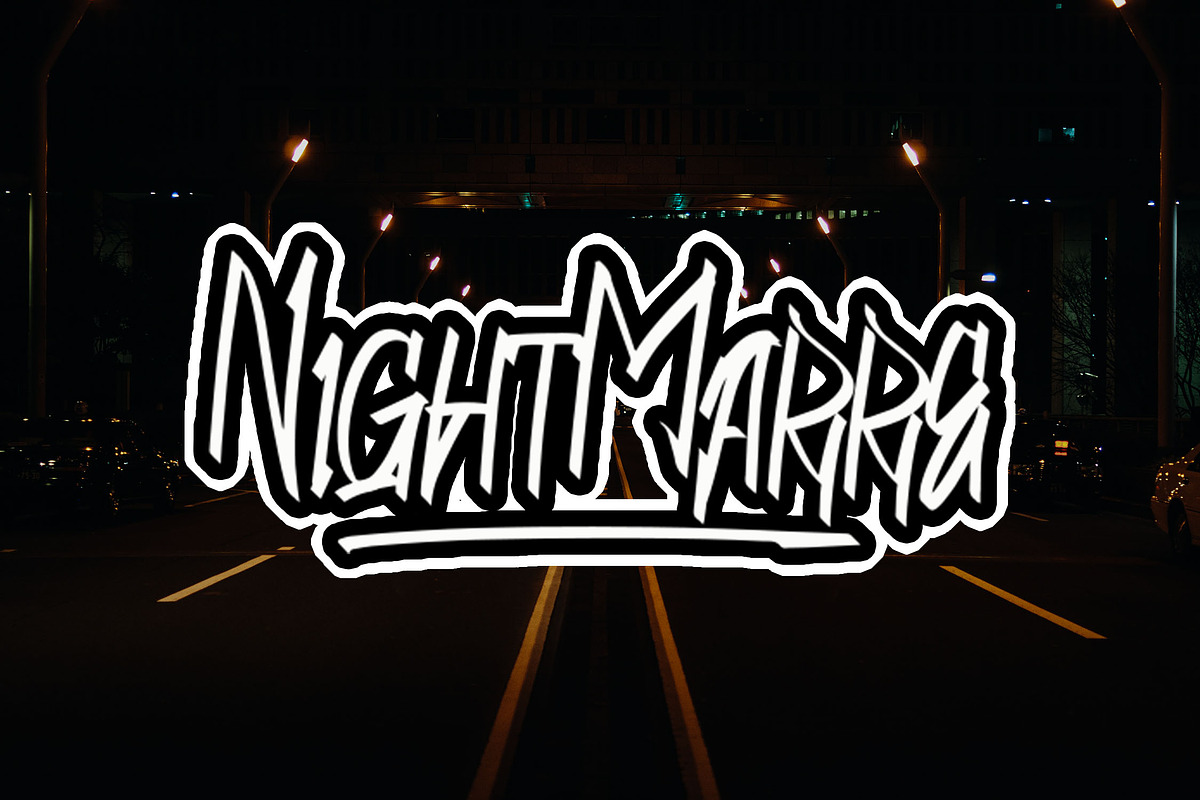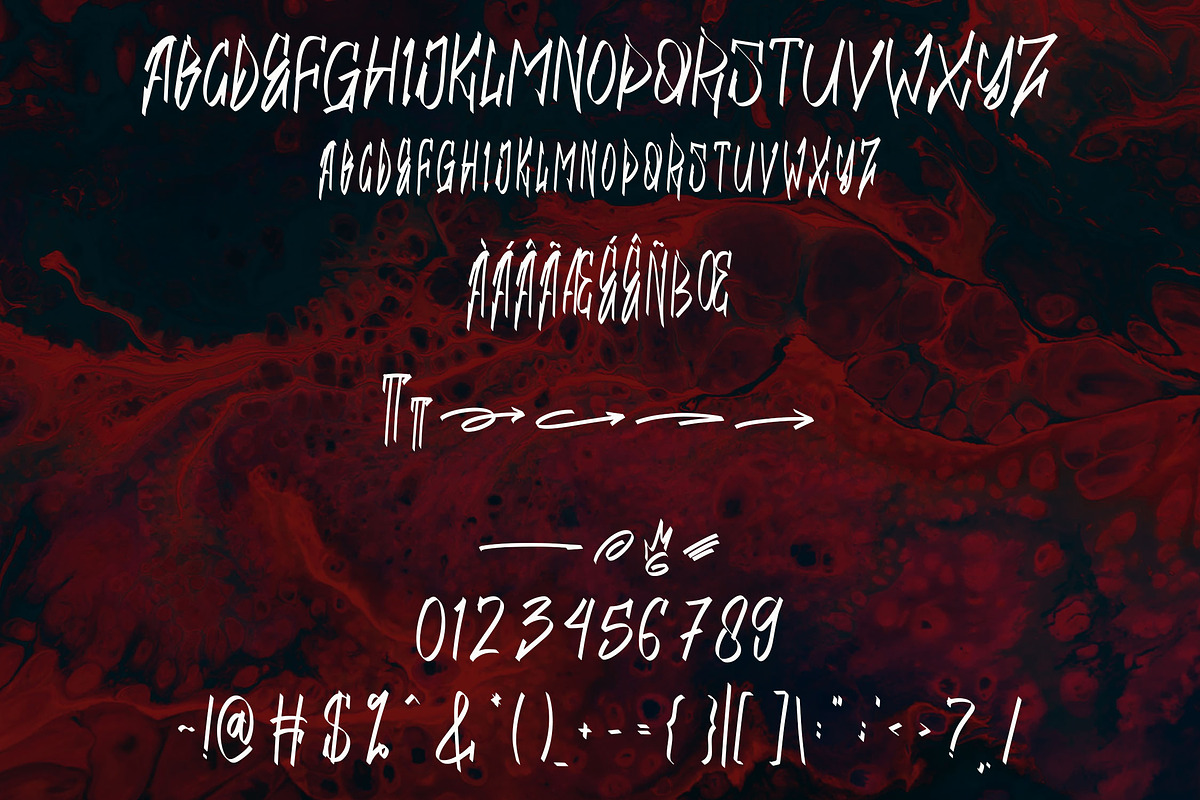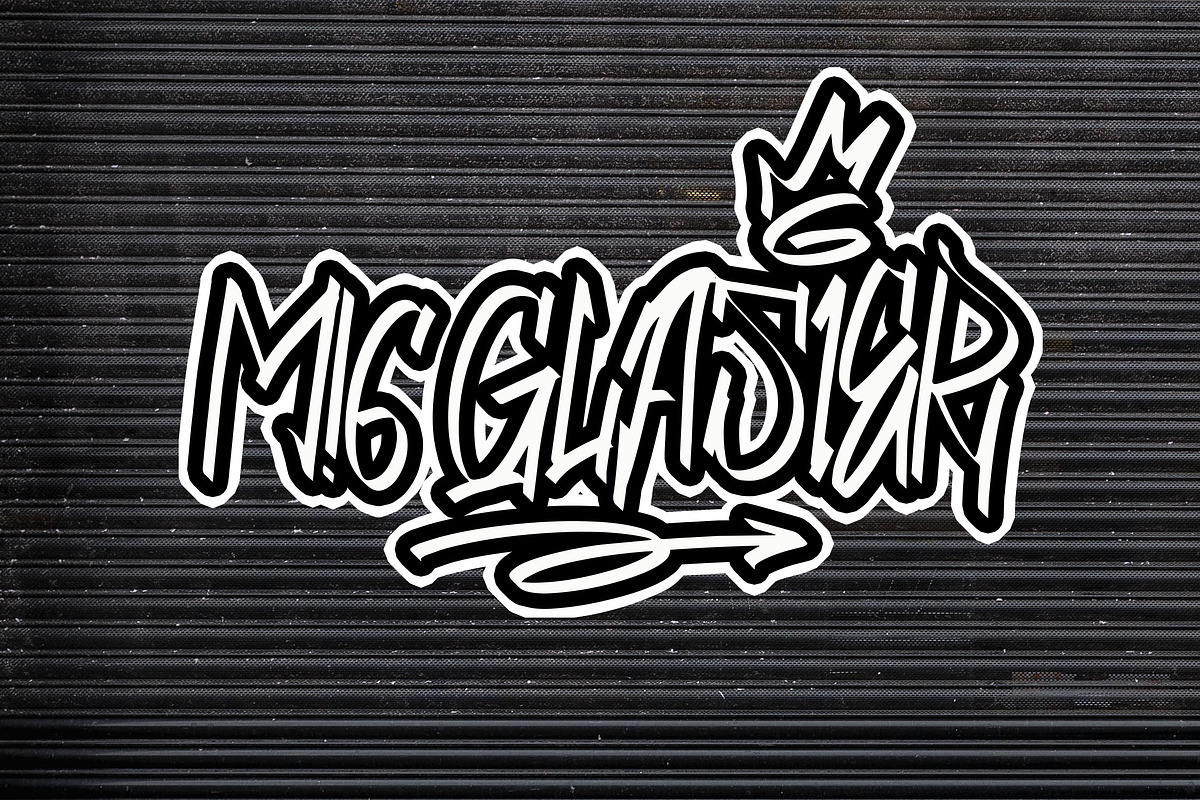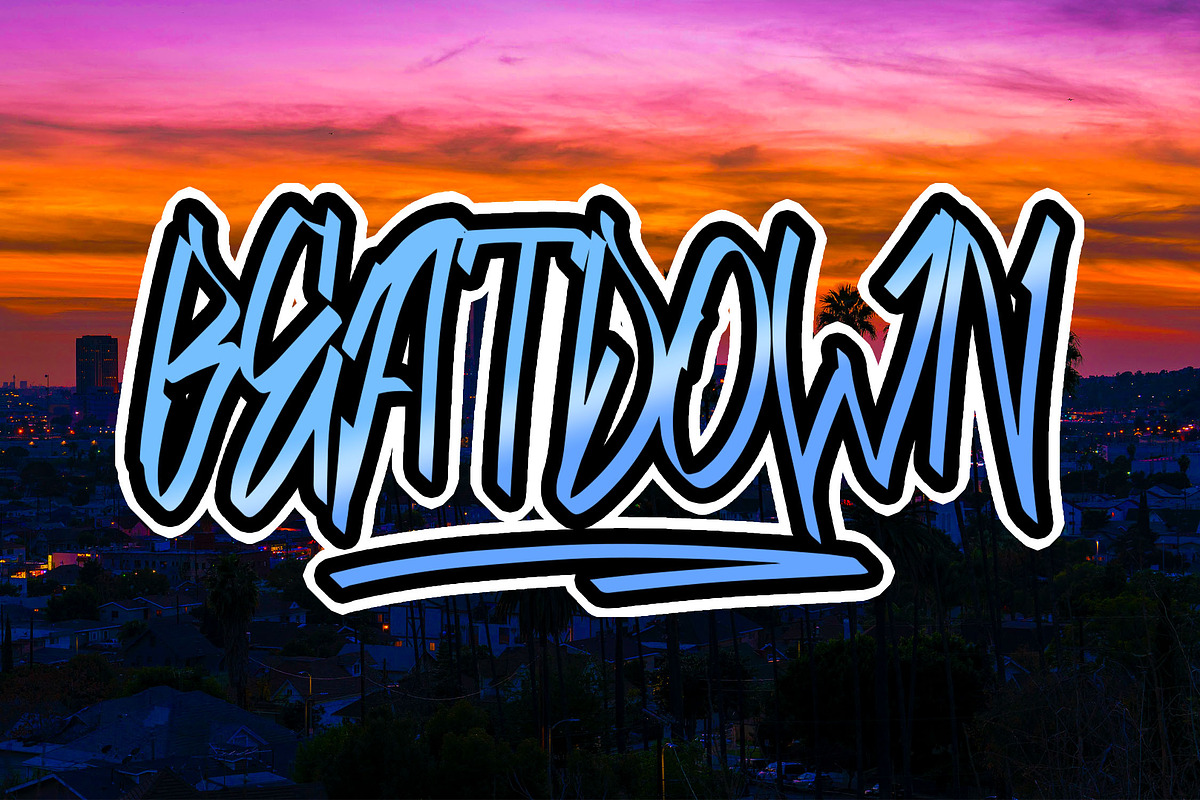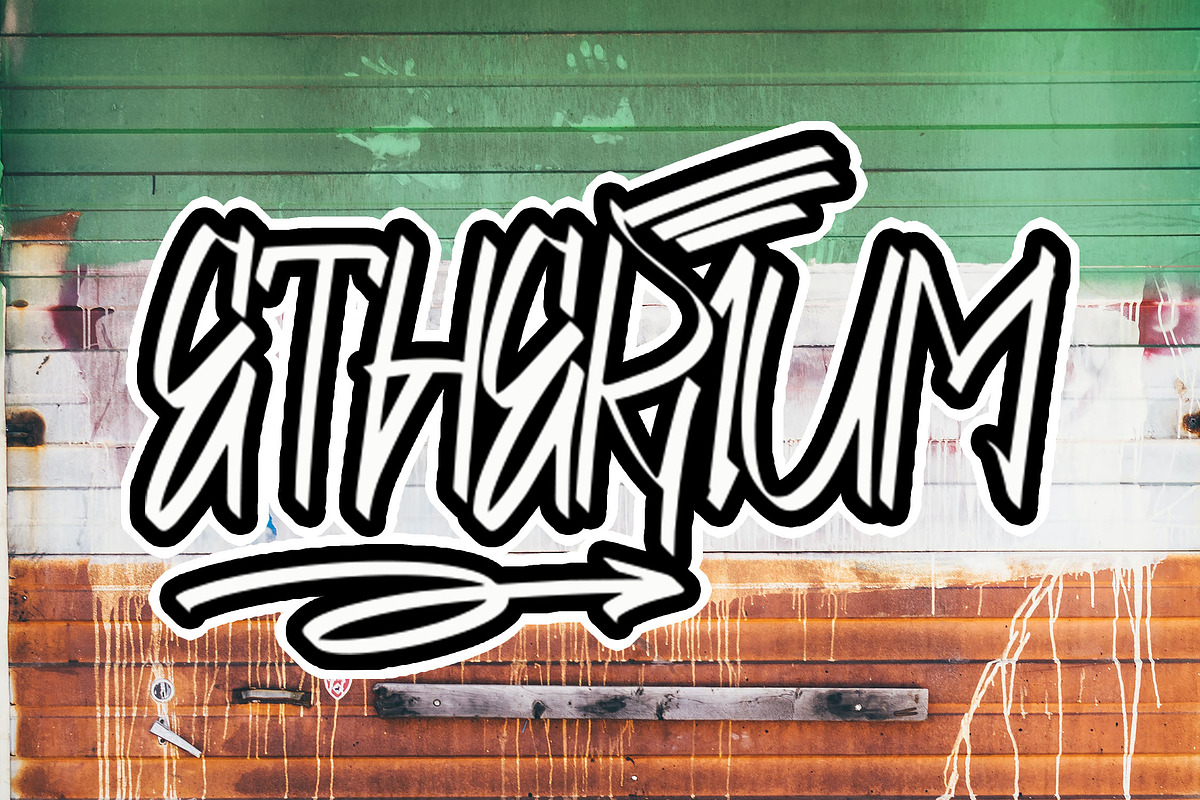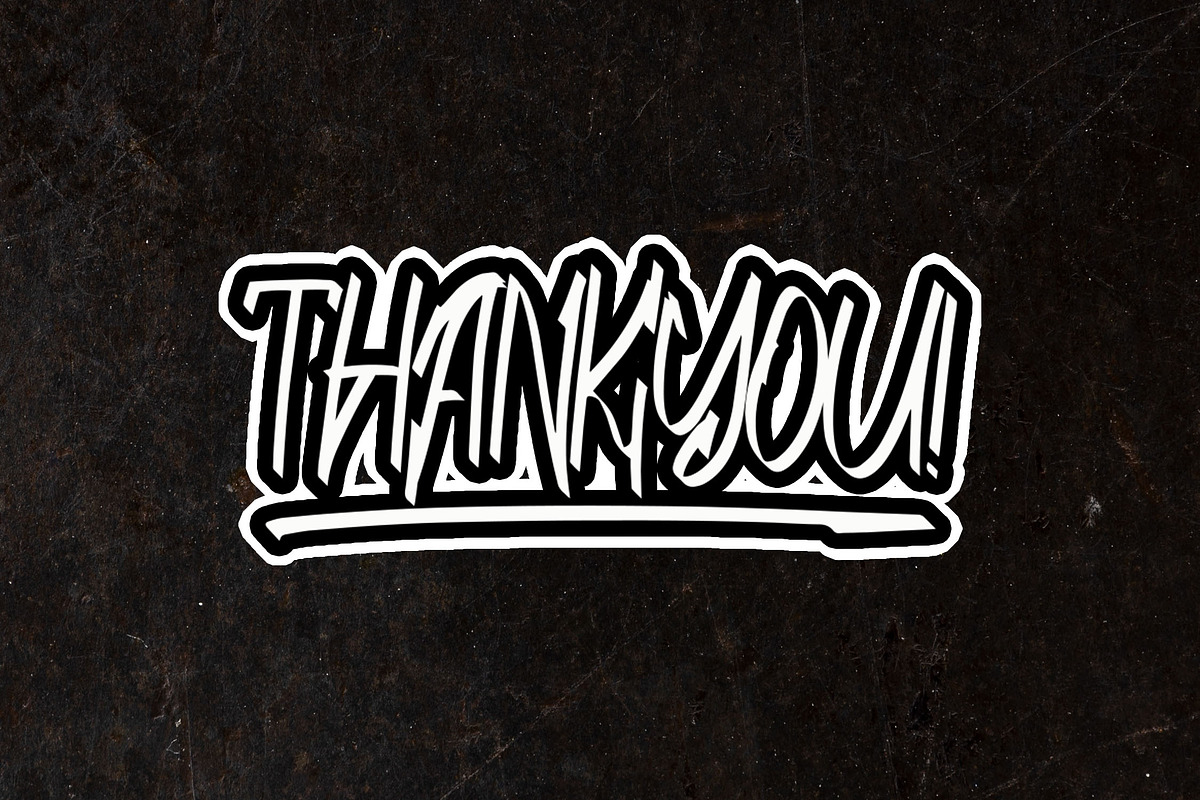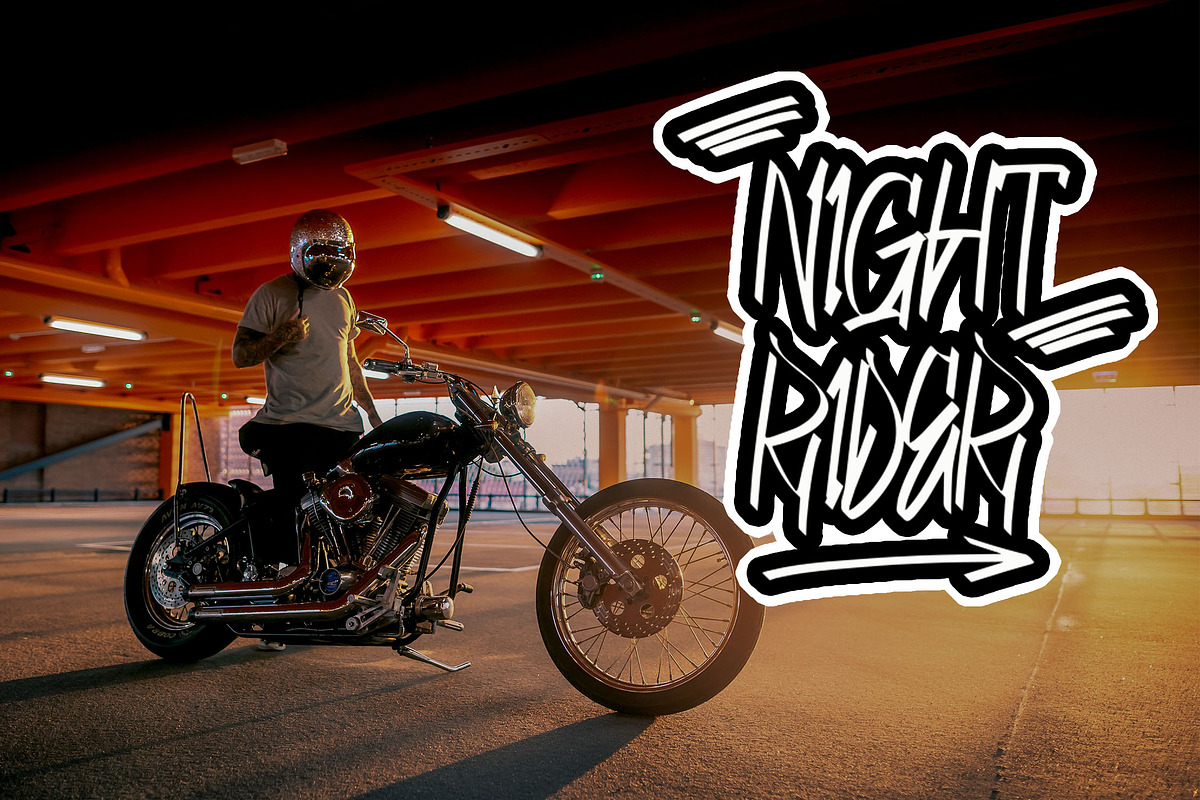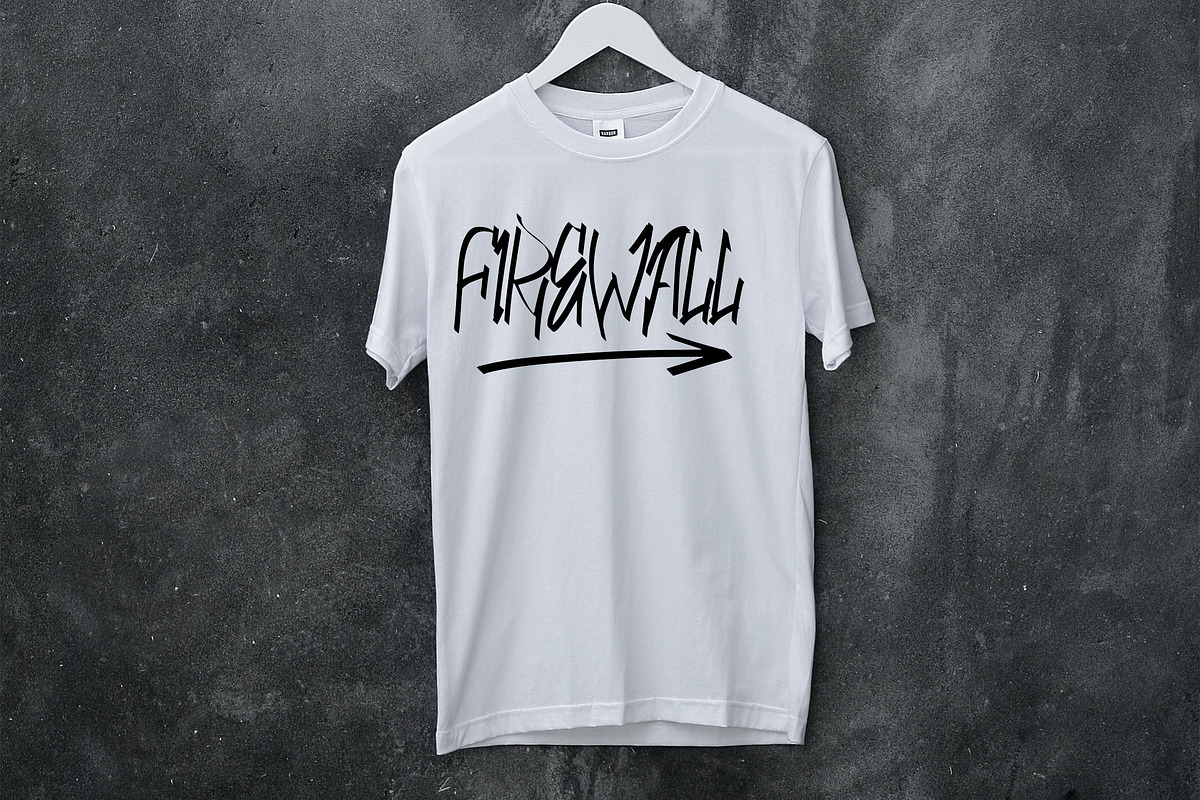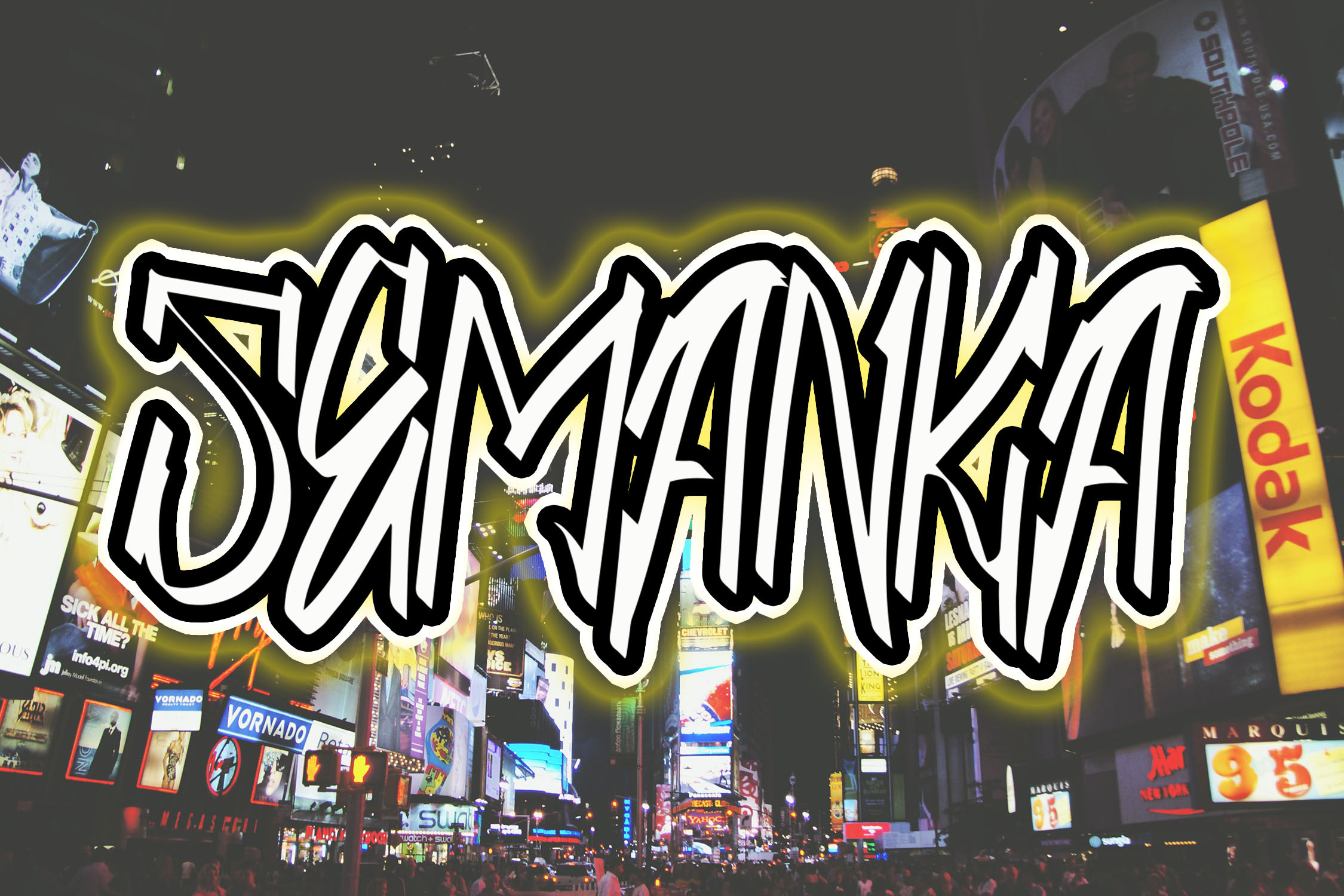
SEMANKA Bold Brush Font
SEMANKA Brush Font
SEMANKA is a bold and stylish brush font featuring unique character shapes. Its bold strokes make it an excellent choice for creating attractive and impactful designs. Perfect for logos, posters, merchandise, and branding projects, SEMANKA adds a creative touch to any graphic appearance.